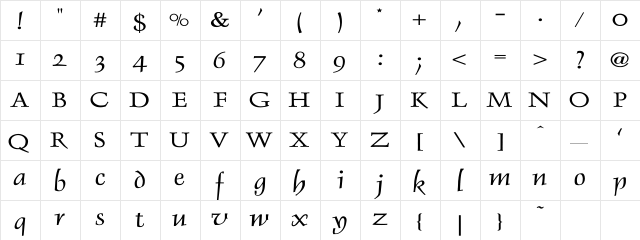
DauphinnBOLD Regular Free Font
Design Context for DauphinnBOLD
DauphinnBOLD is a composed and adaptable typeface that performs quietly and consistently across a wide range of design contexts. Its bold stroke weight gives it real presence on the page.